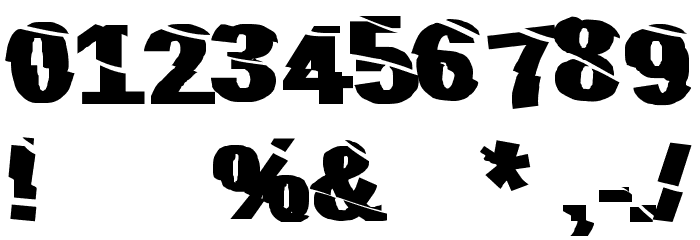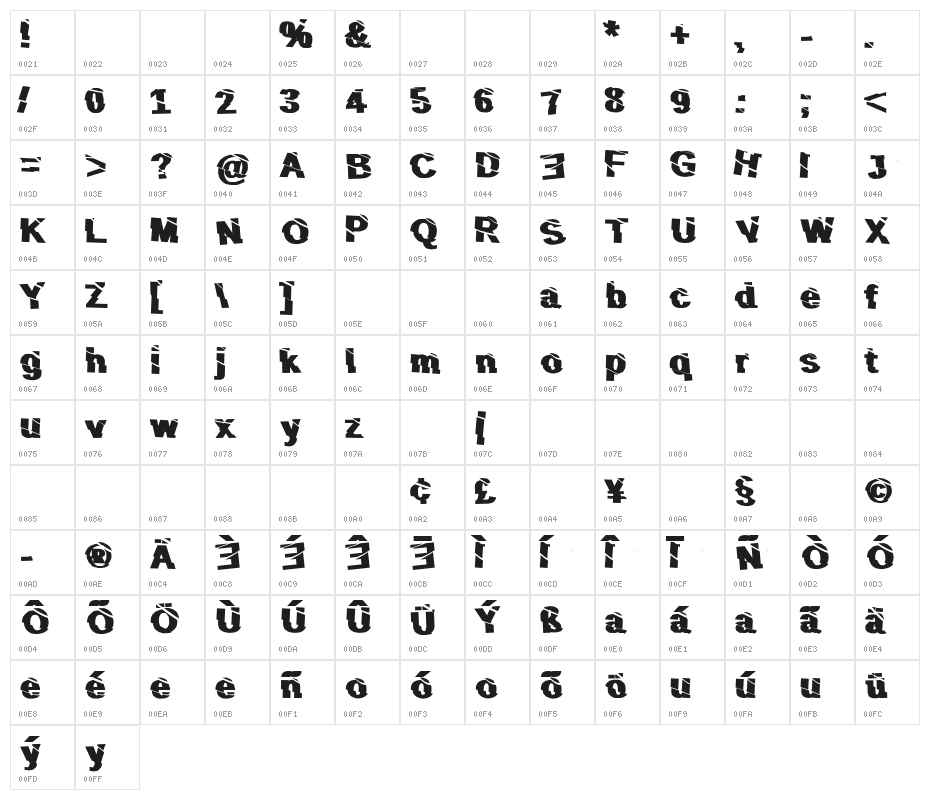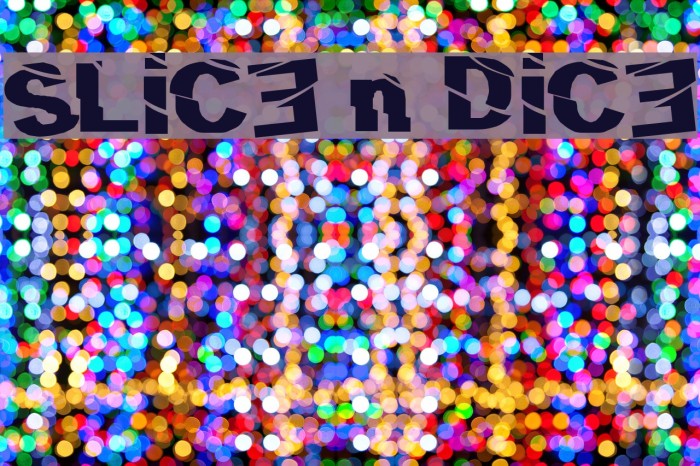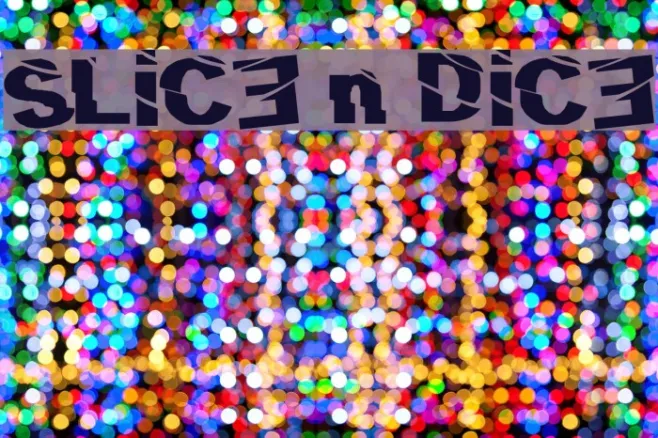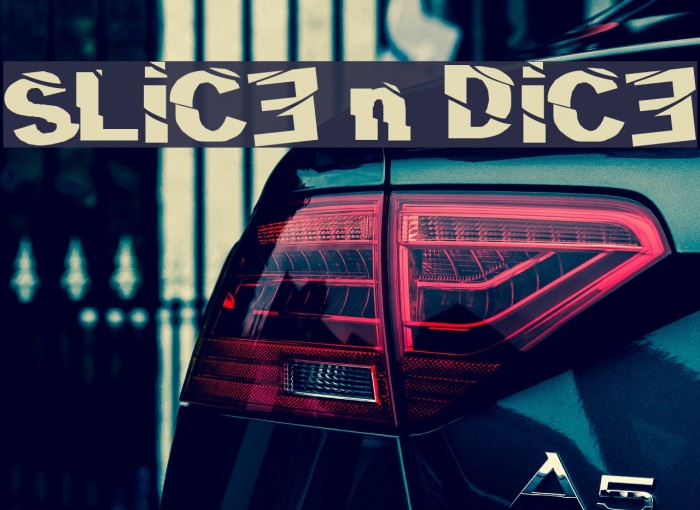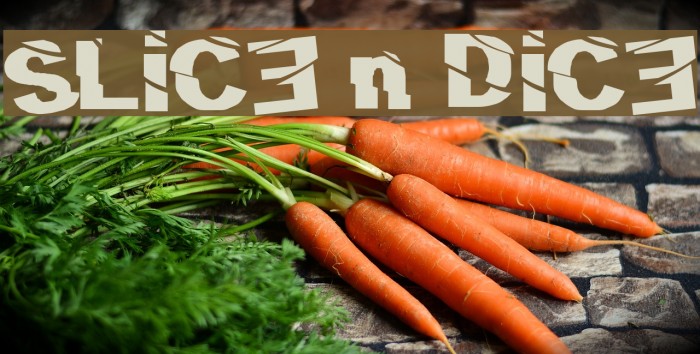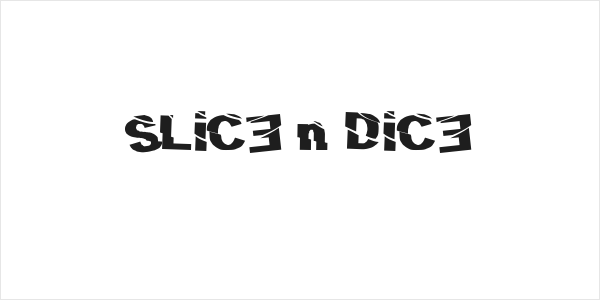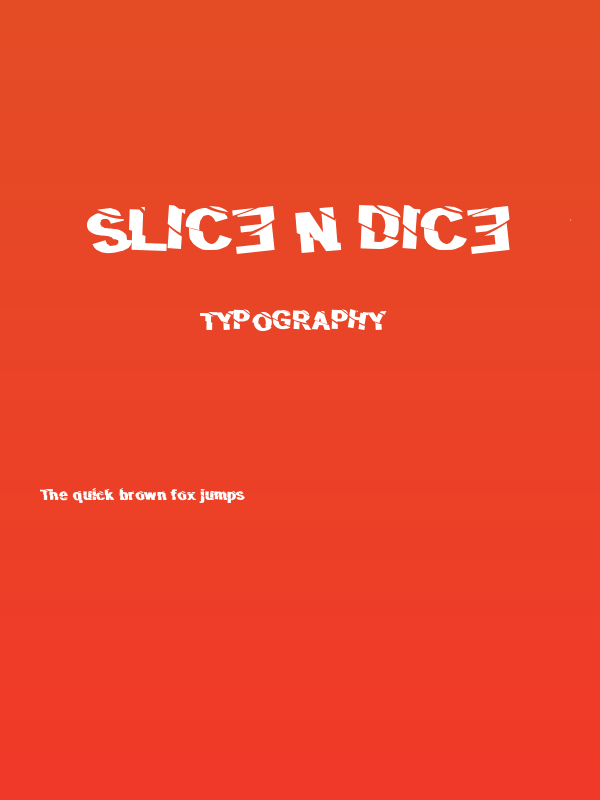
SLiCE n DiCE Font
SLiCE n DiCE Description
This font features a bold and dynamic design with a sliced and diced aesthetic, creating a sense of movement and energy. The characters are heavily stylized, with each letter appearing as if it has been cut and shifted, giving a fragmented yet cohesive look. This unique style is consistent across uppercase, lowercase, numbers, and special characters, making it a versatile choice for creative projects. The font's boldness and high contrast between the thick strokes and the negative space enhance its visual impact, making it ideal for attention-grabbing designs.
| Overall Style | Modern, Edgy |
| Proposed Projects | Perfect for posters, album covers, branding, and any project requiring a bold, edgy look. |